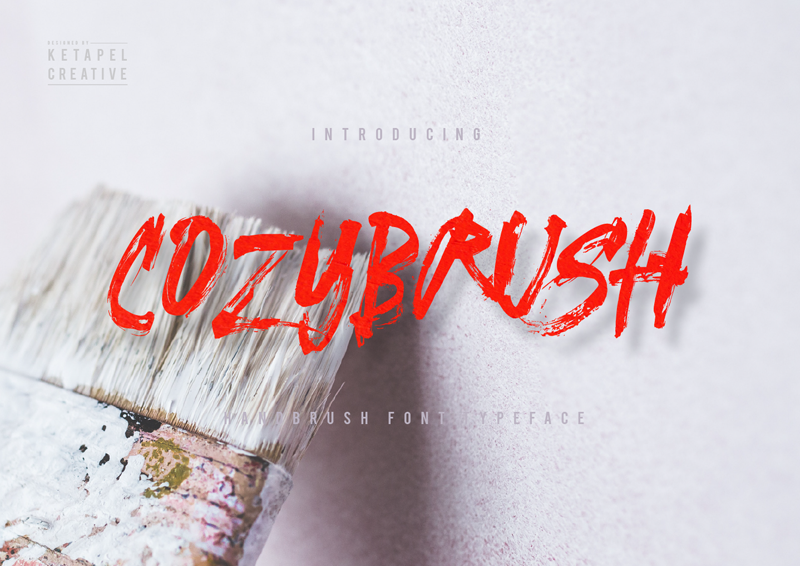
Preview and download Cozybrush Font. Created by Ketapel Creative in Script Brush styles with Free for personal use license.
Cozybrush Font is a harsh and strong brush script with a unique feel, emotions, sharp, rough style, extra quick strokes, natural movement scratch, punchy dry marker display is made by hand. Get inspired by its authentic and raw energy! Suitable for logotype, branding, logos, social media posts, advertisements, packaging, product designs, label, photography, watermark, signage, t-shirt brand and any projects that need handwriting natural brush taste. Includes in character set uppercase, lowercase letters, standard numbers and punctuation also multilingual support. This font is demo version. Free for personal use, please visit store to purchase commercial license full version and more other products. Download & enjoy !! *Contact me : ketapelcreative@gmail.com Thanks for downloading this fonts. Best Regards |